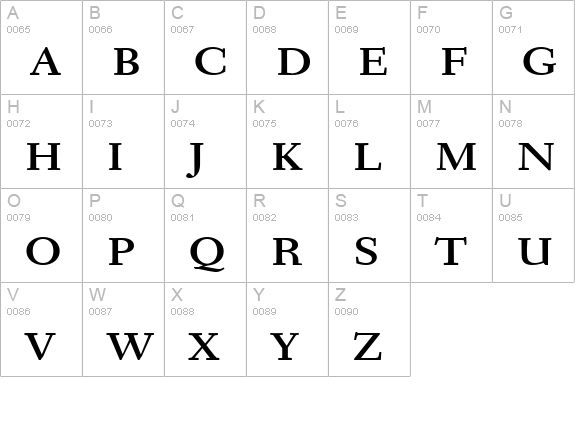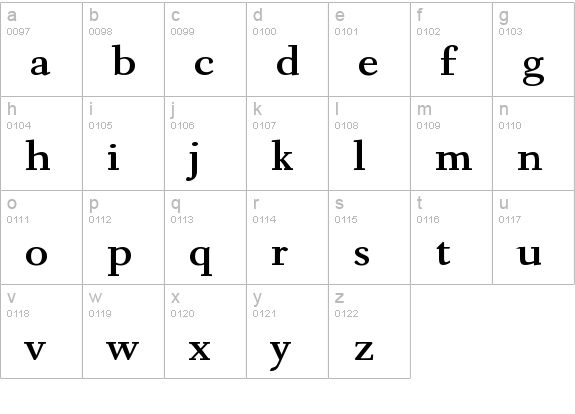
Transit Wide Bold Font Details
Transit Wide Bold is a strong, high-contrast, extended-width variant in the Transit typeface family \xE2\x80\x94 well suited to headlines, attention-grabbing titles, and strong calls-to-action.
Transit Wide Bold font is a perfect blend of boldness and modernity, designed to make a statement. With its strong and confident letterforms, this font demands attention while maintaining readability and clarity. The wide spacing between characters adds a touch of elegance and sophistication to any design project. Whether you're creating eye-catching headlines, engaging social media posts, or striking logos, Transit Wide Bold font is your go-to choice. Its versatility makes it suitable for both digital and print media, ensuring seamless integration across various platforms. One of the best things about Transit Wide Bold font is that it is free! Yes, you read that right. This amazing font is freely available to download at FontsMarket.com. With just a few clicks, you can enhance your designs with this professional and stylish typeface without spending a dime. FontsMarket.com is a trusted source for high-quality fonts, and they provide an extensive collection of free fonts for designers and creative individuals. Their easy-to-use website allows you to browse, preview, and download fonts quickly and conveniently. So, why settle for ordinary when you can elevate your designs with Transit Wide Bold font? Download it for free at FontsMarket.com and unlock a world of possibilities for your next project. Let your creativity soar and make a lasting impression with this captivating and visually appealing typeface.